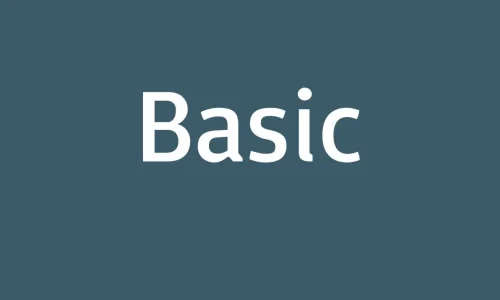
The Atami font is a modern and sleek typeface, perfect for contemporary projects. Its clean lines and stylish design make it suitable for a variety of applications.
Imagine using it for a sleek website, a tech-savvy business presentation, or a fashion-forward poster. The Atami font helps your words embody a sense of modernity and sophistication, making them look sharp and on-trend.
| Name | Atami Font |
| Designer | Andrew Herndon |